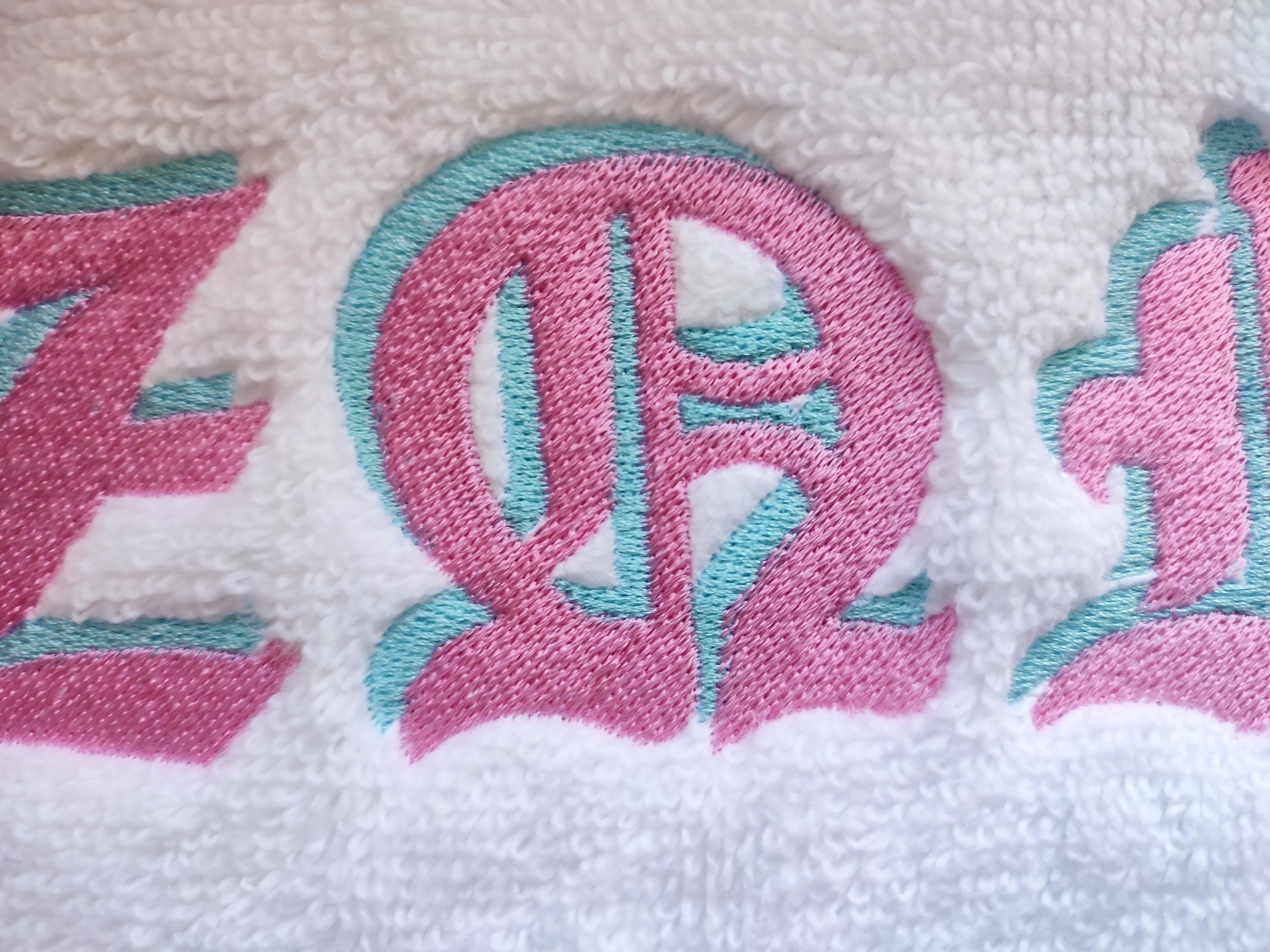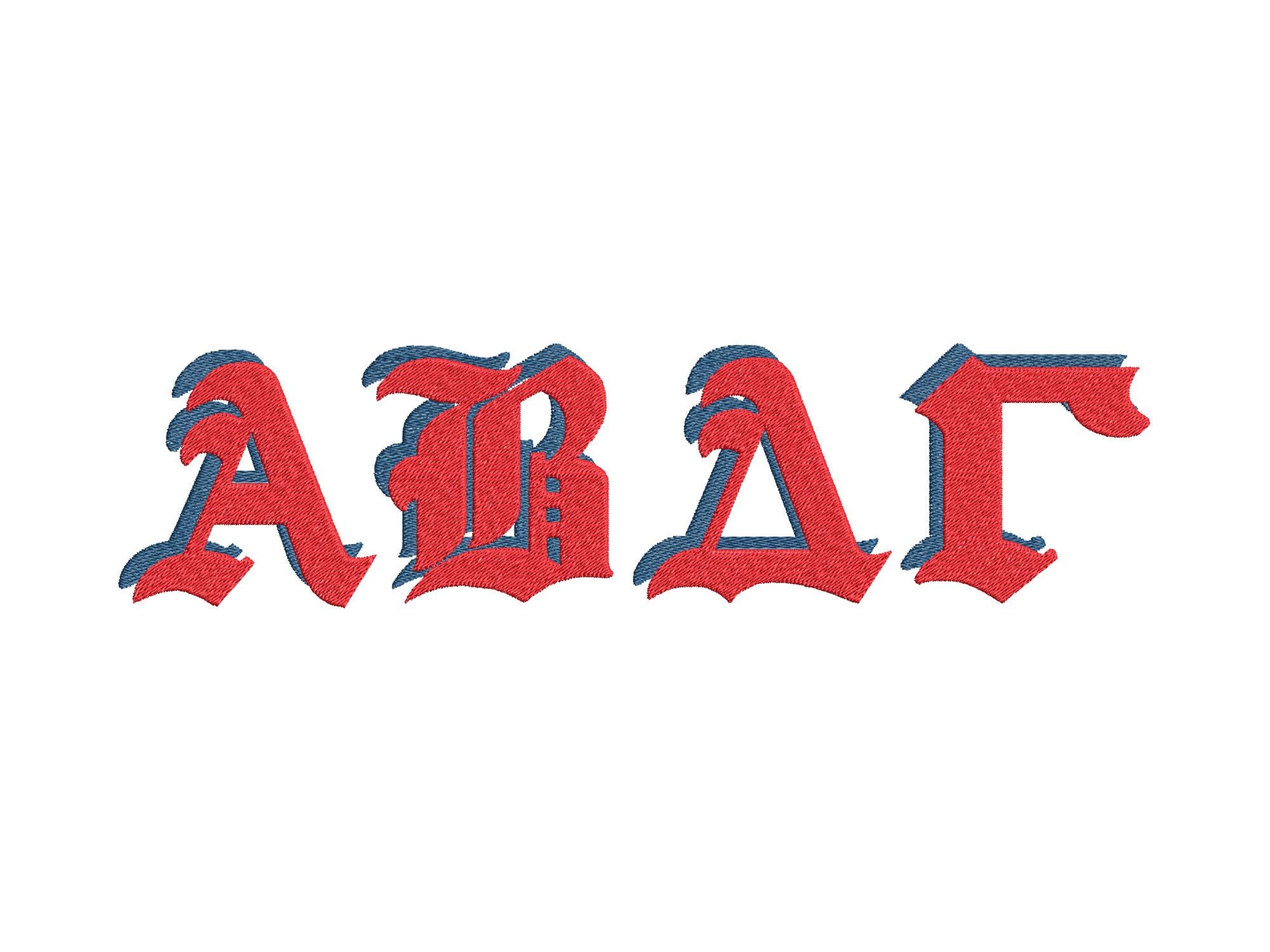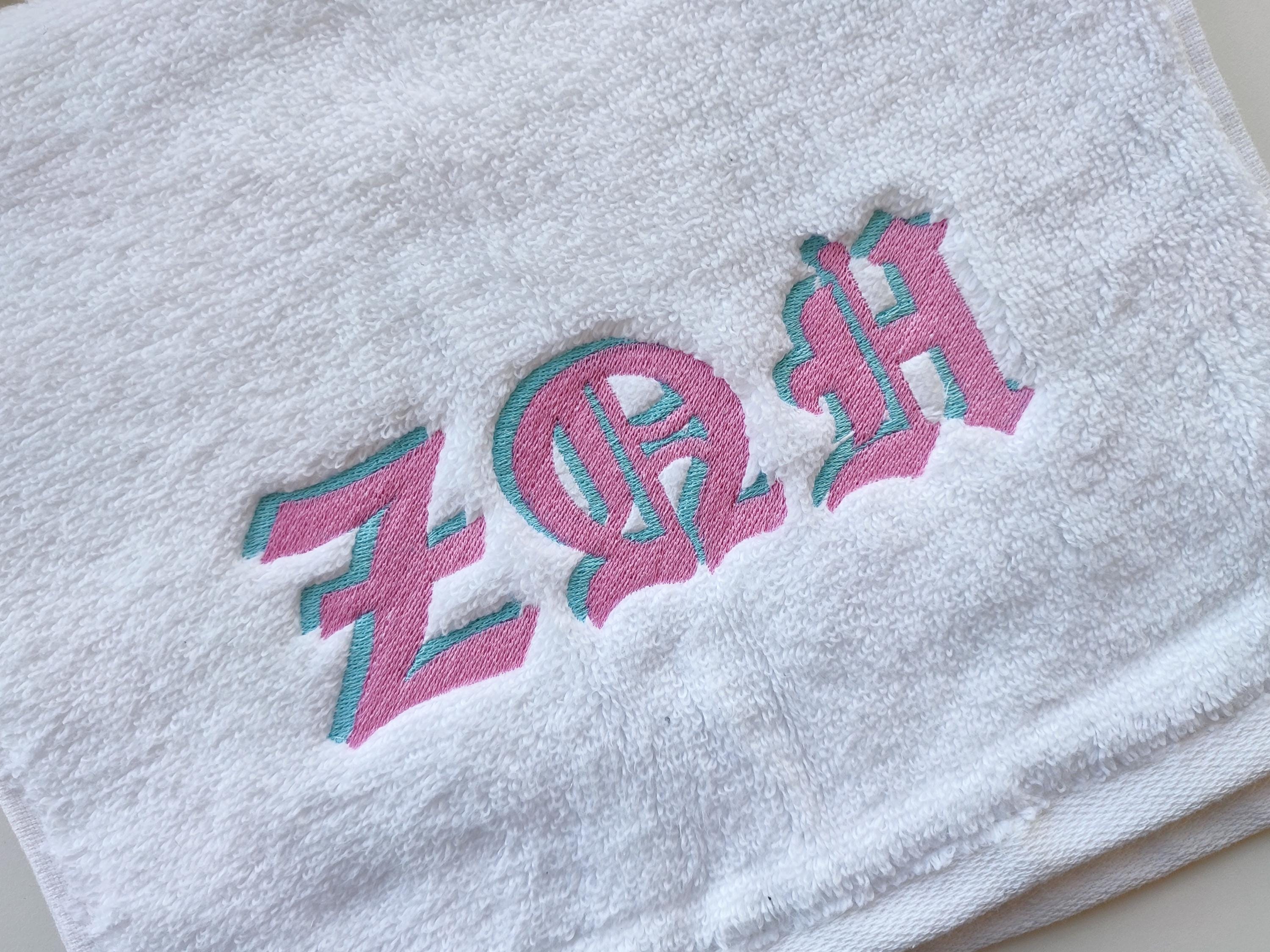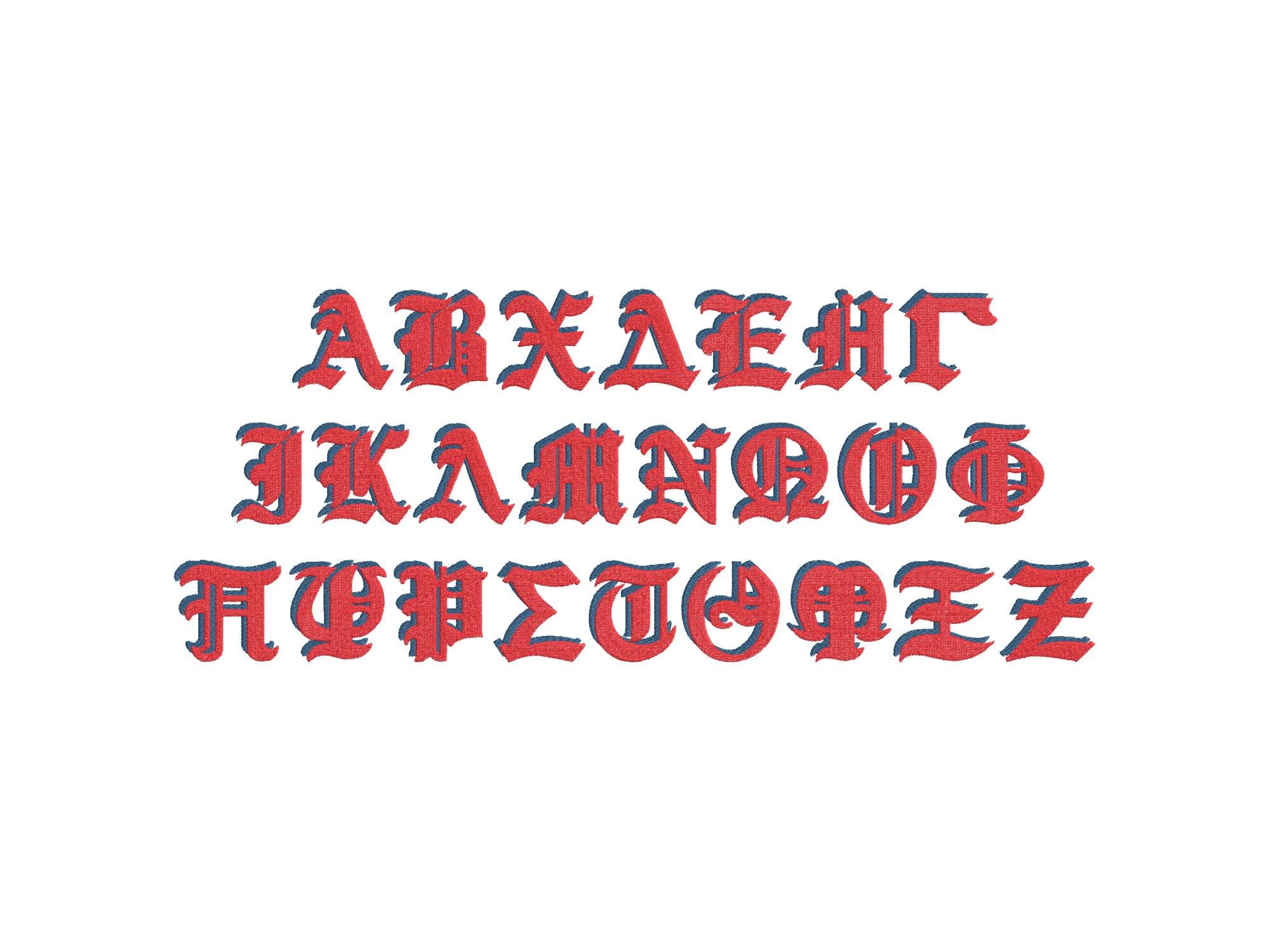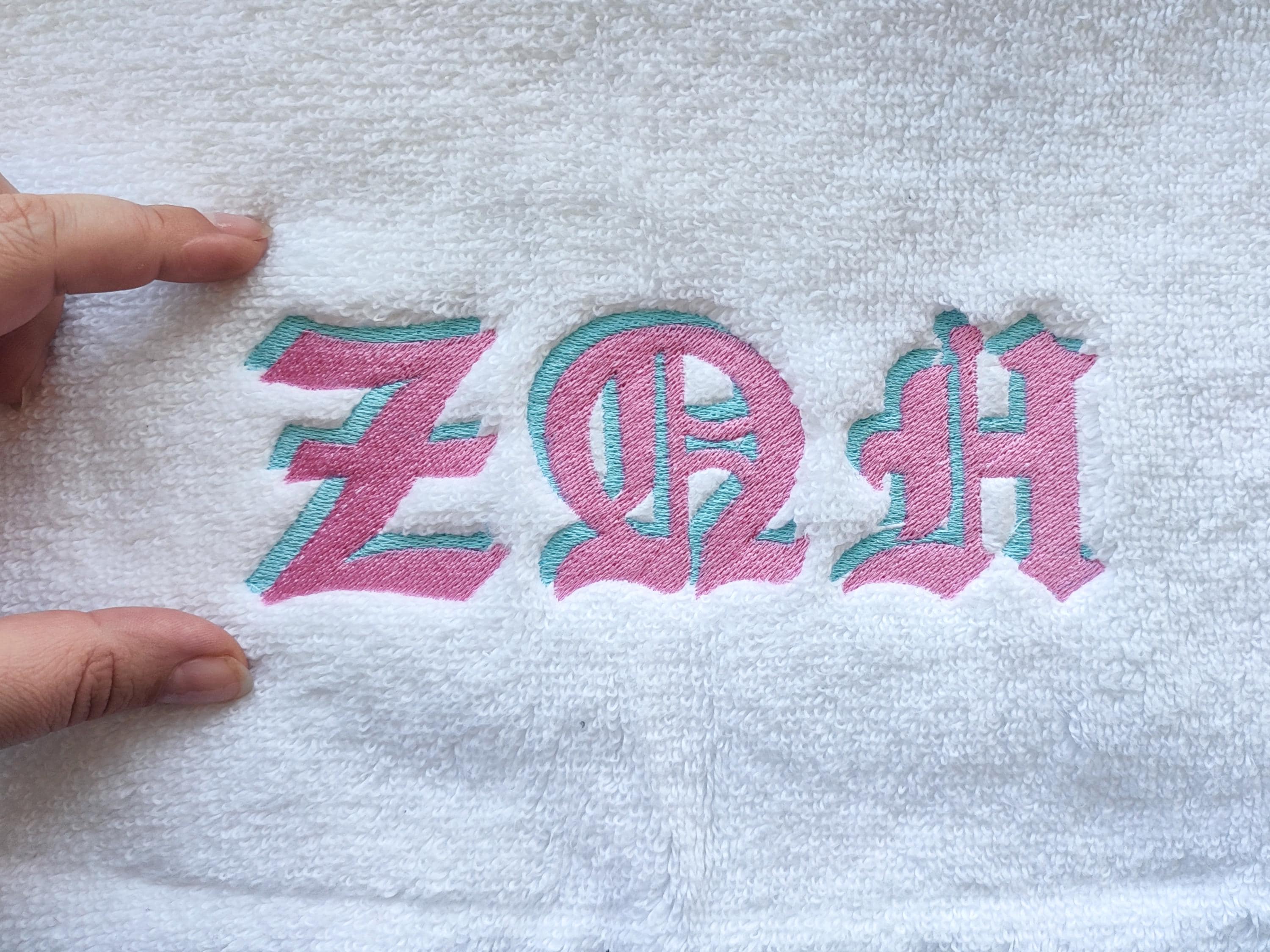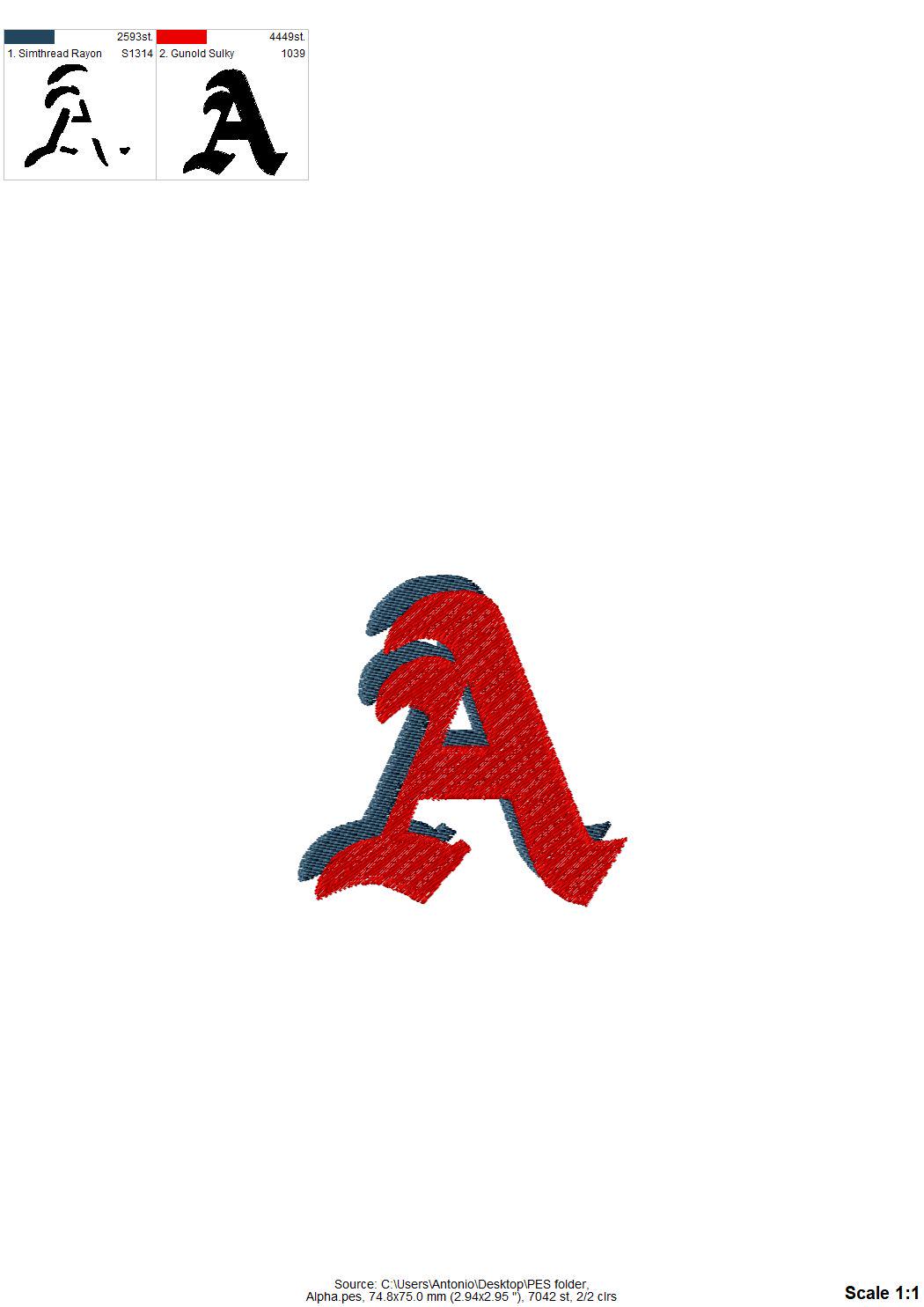
Old style fill stitch Shadow GREEK FONT monogram fraternities sororities Greek alphabet machine embroidery designs sizes 2.2 to 3.7 inch and BX
Entire alphabet 24 Greek letters.
Awesome fill stitch design with shadow.